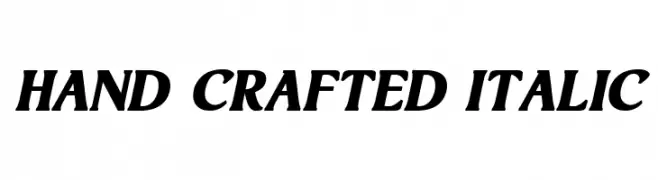
A decorative floral dingbat font with diverse botanical icons.
A playful, handcrafted font with bold, irregular strokes and a whimsical style.
A playful, hand-drawn font with a whimsical and casual style.
A bold, rounded, and playful font with a handcrafted feel.
A bold, handcrafted font with a vintage, playful style.
A bold, italicized font with a mysterious, Lovecraftian horror aesthetic.
Playful handwritten script font.
Bold serif font with a handcrafted look.
A decorative font resembling cross-stitch embroidery with a handcrafted feel.
A decorative font with a mechanical and industrial theme, featuring tool-inspired elements.
A playful, handcrafted font with a rustic, homespun aesthetic.
A rugged, stone-like font with a fantasy and medieval aesthetic.
A bold, futuristic font with angular, geometric shapes.
A textured, hand-stitched style font with a playful, crafty appearance.
A playful, hand-drawn font with a whimsical and friendly style.
A decorative and intricate font with characters formed by intertwining shapes.
A playful, stitched-style font with a handcrafted appearance.
A classic serif font with elegant, refined strokes and a light, airy feel.
A bold, rugged font with a distressed, hand-crafted appearance.
A hand-stitched, embroidery-style font with a playful and crafty appearance.
A decorative font with intricate wood grain patterns, ideal for artistic and nature-themed projects.
A decorative font with a cross-stitch pattern, offering a vintage and handcrafted look.